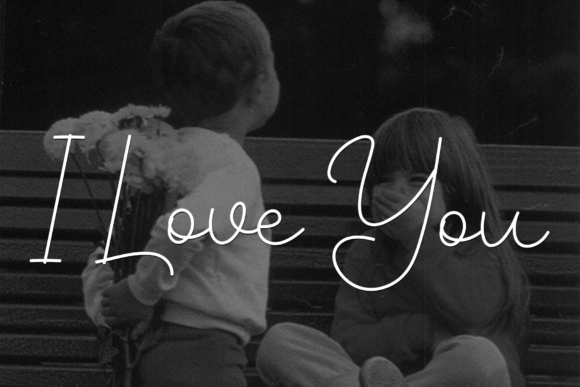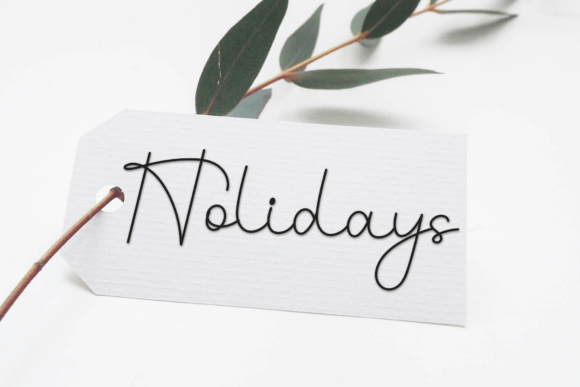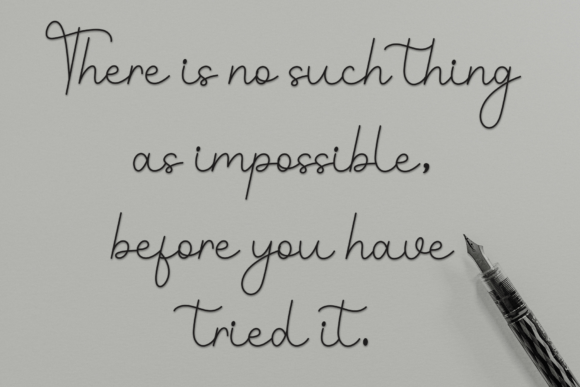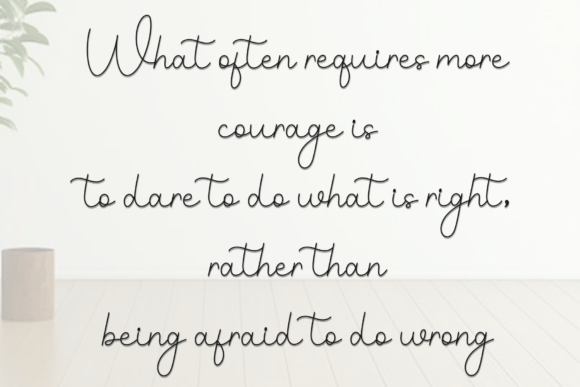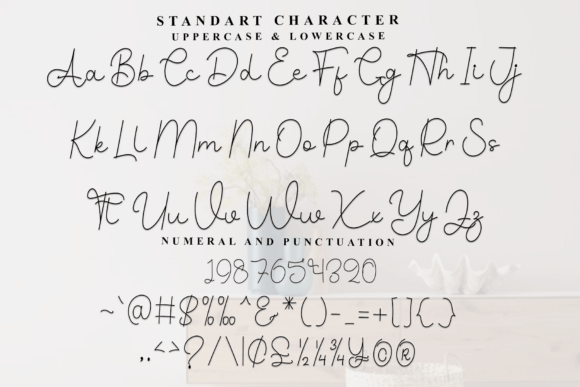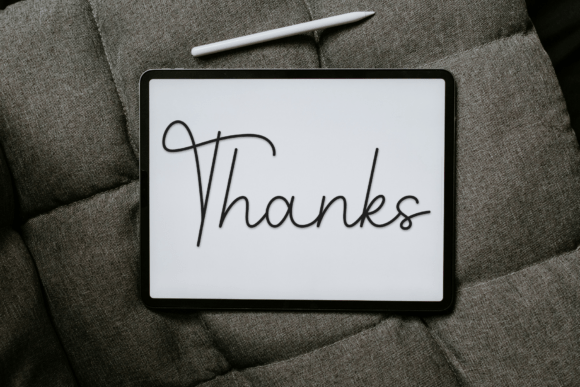
Heartbeat Font: Elevate Your Designs with a Unique and Eye-Catching Style
Are you tired of using the same old fonts in your design projects? Look no further than the Heartbeat Font, a beautiful and eye-catching typeface that is sure to capture the attention of your audience. With its soft, unique touch and distinctive strokes, this font is perfect for designers, crafters, and creatives looking to add a special touch to their work.
The Characteristics of Heartbeat Font
The Heartbeat Font is designed with a unique and special character that sets it apart from other fonts. Its soft and natural style makes it perfect for a wide range of design projects, from crafts and DIY projects to digital designs and artistic creations. The font features a range of characters, making it versatile and suitable for various applications.
What Makes Heartbeat Font Stand Out
So, what makes the Heartbeat Font so special? Here are just a few reasons why this font is a cut above the rest:
- Unique and Eye-Catching Design: The Heartbeat Font features a distinctive and eye-catching design that is sure to capture the attention of your audience.
- Soft and Natural Style: The font’s soft and natural style makes it perfect for a wide range of design projects, from crafts and DIY projects to digital designs and artistic creations.
- Wide Range of Characters: The font features a range of characters, making it versatile and suitable for various applications.
Uses of Heartbeat Font
The Heartbeat Font is perfect for a wide range of design projects, including:
- Design Projects: Use the Heartbeat Font to add a unique and eye-catching touch to your design projects, from brochures and flyers to posters and banners.
- Crafts and DIY Projects: The font’s soft and natural style makes it perfect for crafts and DIY projects, such as handmade cards, gift tags, and other paper crafts.
- Artistic Creations: The Heartbeat Font is also perfect for artistic creations, such as illustrations, paintings, and other forms of visual art.
Benefits of Using Heartbeat Font
Using the Heartbeat Font in your design projects can have a range of benefits, including:
- Enhanced Visual Appeal: The font’s unique and eye-catching design is sure to capture the attention of your audience and enhance the visual appeal of your designs.
- Increased Creativity: The Heartbeat Font’s soft and natural style can inspire creativity and help you to think outside the box in your design projects.
- Versatility: The font’s compatibility with various applications and wide range of characters make it a versatile and convenient choice for designers and crafters.
In conclusion, the Heartbeat Font is a beautiful and eye-catching typeface that is perfect for designers, crafters, and creatives looking to add a special touch to their work. With its unique and distinctive design, soft and natural style, and versatility, this font is sure to enhance your designs and inspire creativity. Whether you’re working on a design project, craft, or artistic creation, the Heartbeat Font is a great choice.